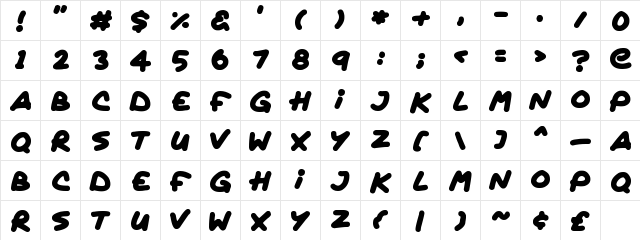
Quickly Regular
Design Context for Quickly Typeface
Quickly takes a measured approach to typography — its balanced proportions and neutral character make it a reliable workhorse for both digital and print work.